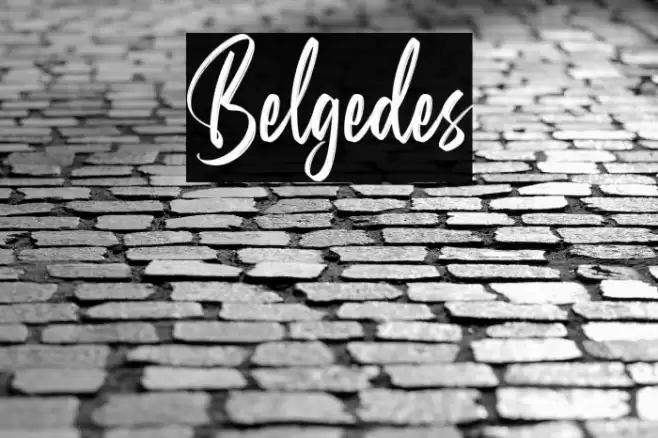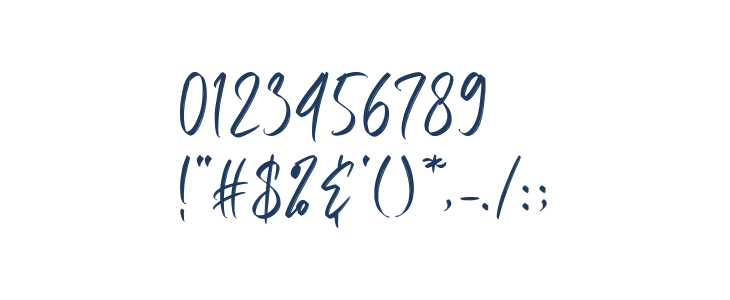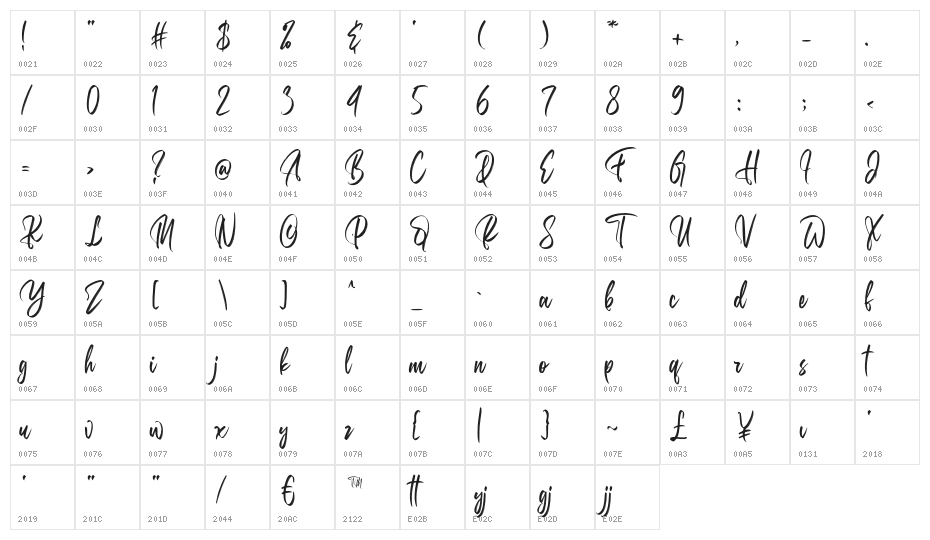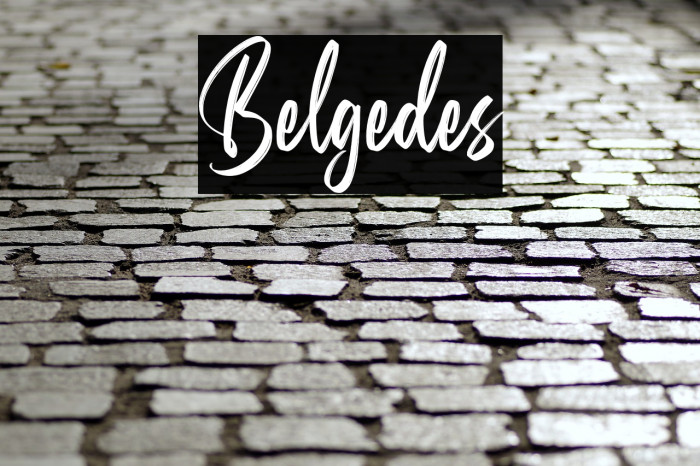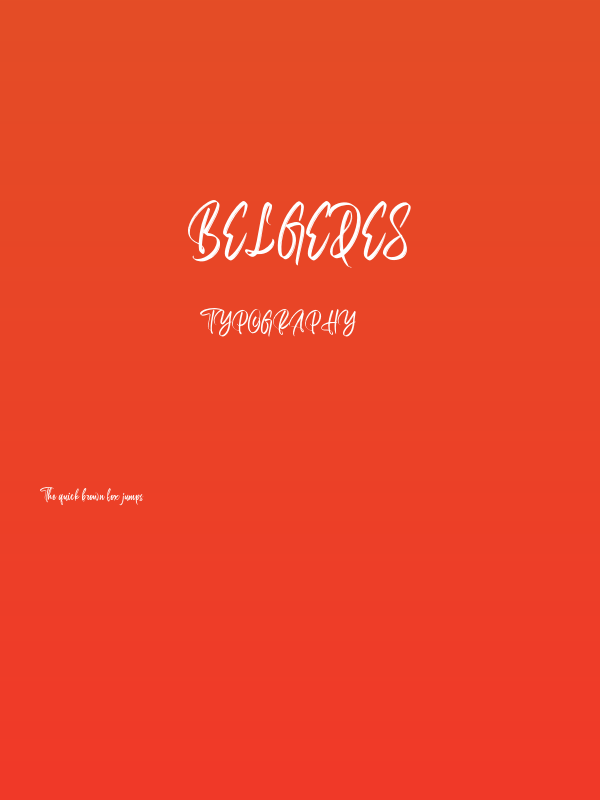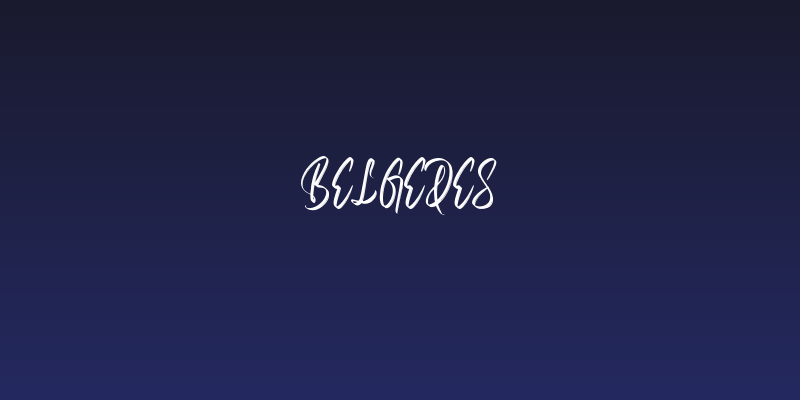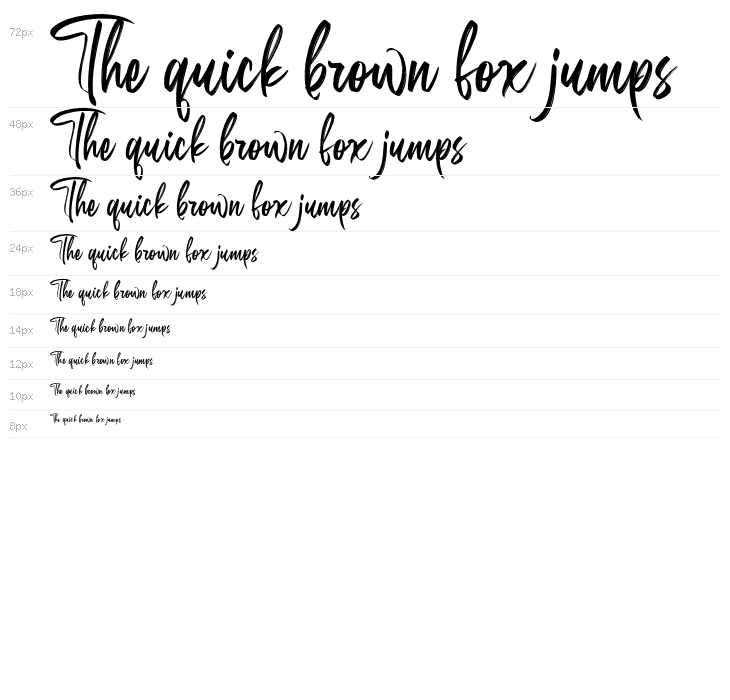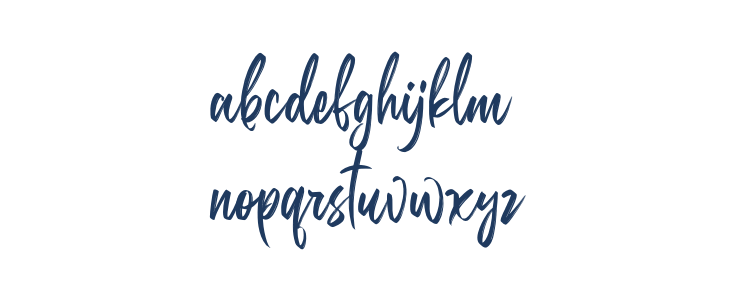
Belgedes Font
Belgedes Description
This font features an elegant and flowing script style, characterized by its smooth, cursive strokes and artistic flair. The uppercase letters are bold and dramatic, with sweeping lines and curves that give them a sense of movement and grace. The lowercase letters maintain a consistent style, offering a harmonious blend of loops and swashes that enhance readability while maintaining a decorative appeal. The numerals are distinct and stylish, complementing the overall aesthetic with their fluid design. Special characters are thoughtfully crafted, adding to the font's versatility and charm. This font is perfect for projects that require a touch of sophistication and creativity.
A flowing, elegant script font with bold, cursive strokes and artistic flair from Uncategorized fonts.
- Proposed Projects: Ideal for wedding invitations, branding, greeting cards, and elegant logo designs.
- Use Case: Logos, Invitations, Branding